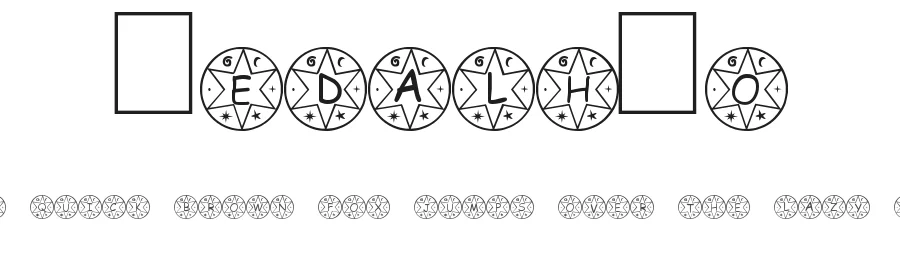
About Manifesto Font
Manifesto is a decorative font designed by imagex. It includes 63 glyphs, a regular weight, and TTF (TrueType) format. Manifesto is free to download; check the license details on this page before commercial use. Decorative fonts like Manifesto work best for logos, posters, packaging, and standout headlines.
Manifesto Font is a decorative font that shines as a display or heading face. Pair it with a clean sans-serif or serif font for body text β the contrast creates a clear hierarchy while the two styles stay balanced and easy to read.
Manifesto Font